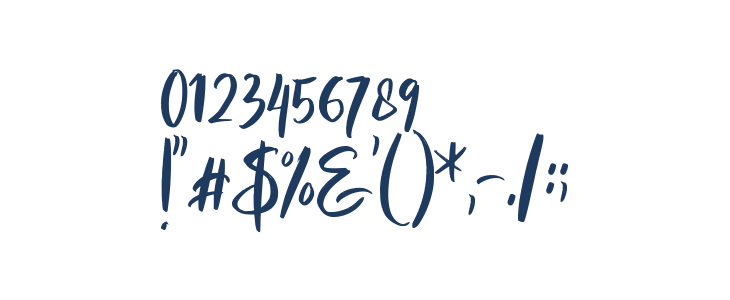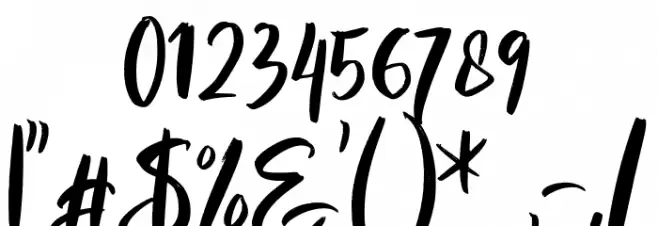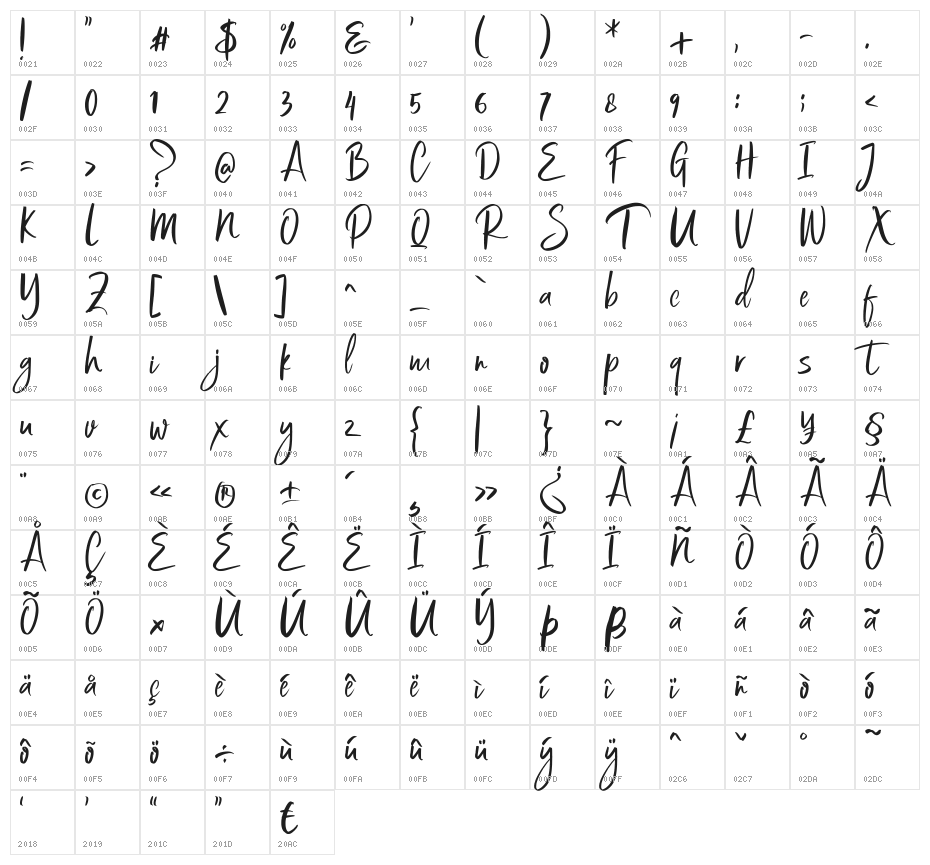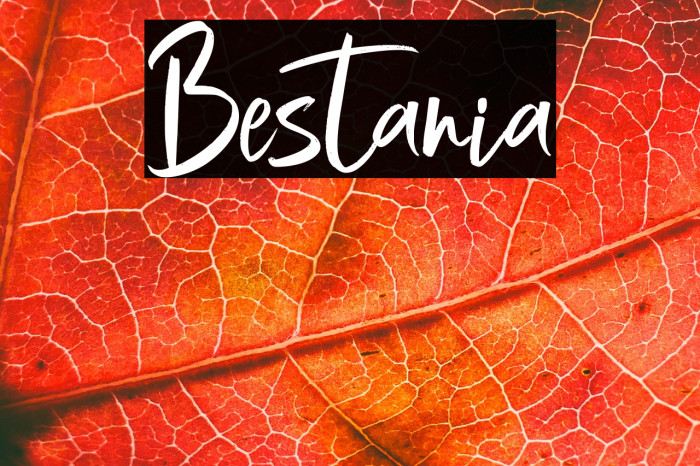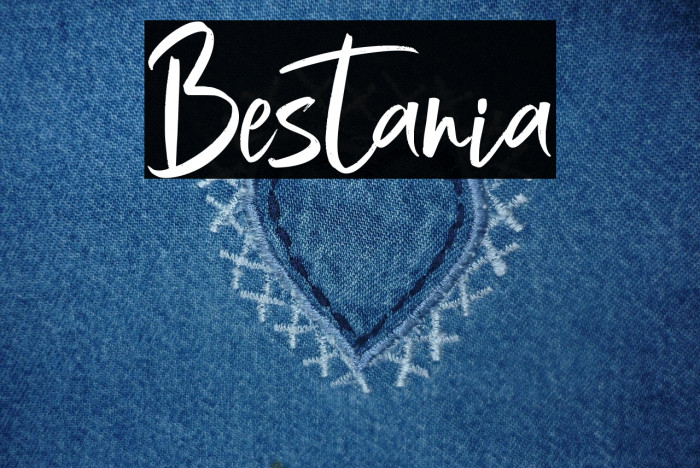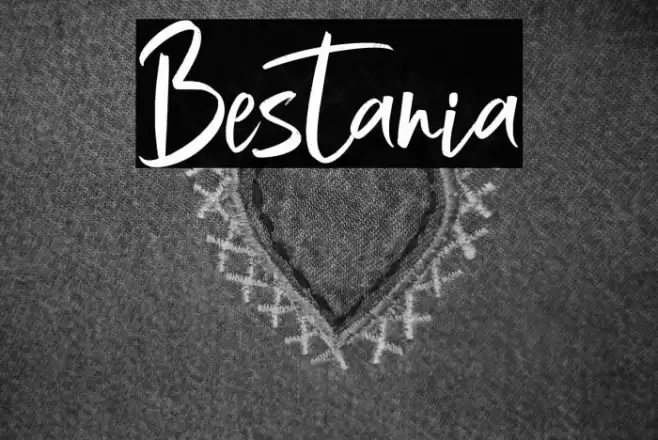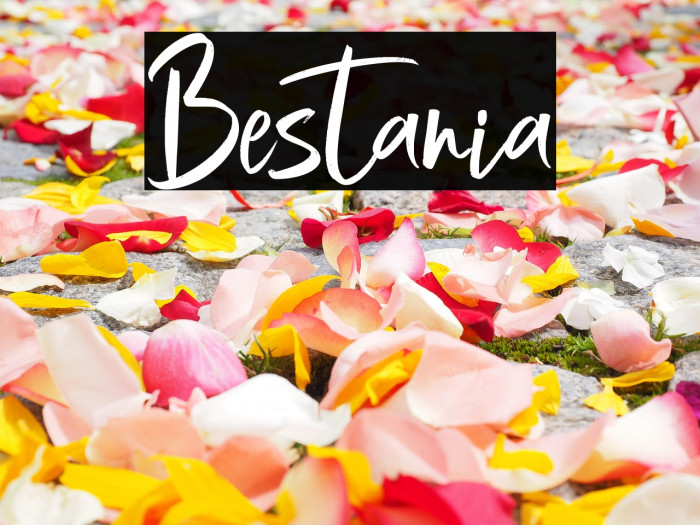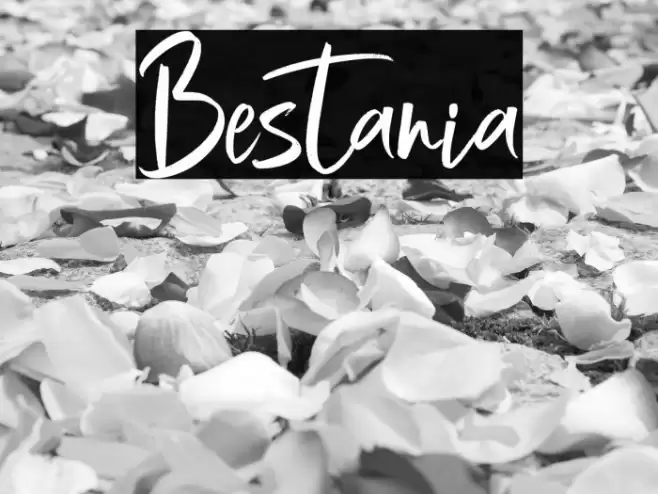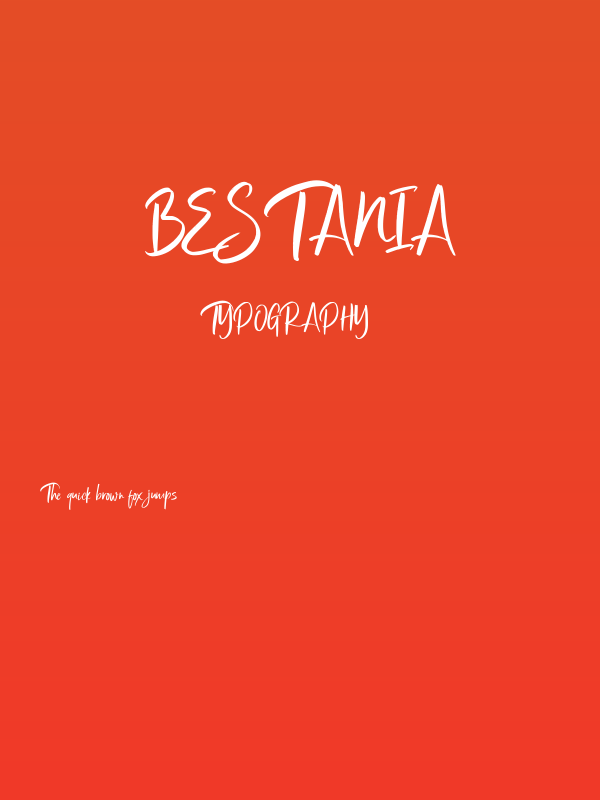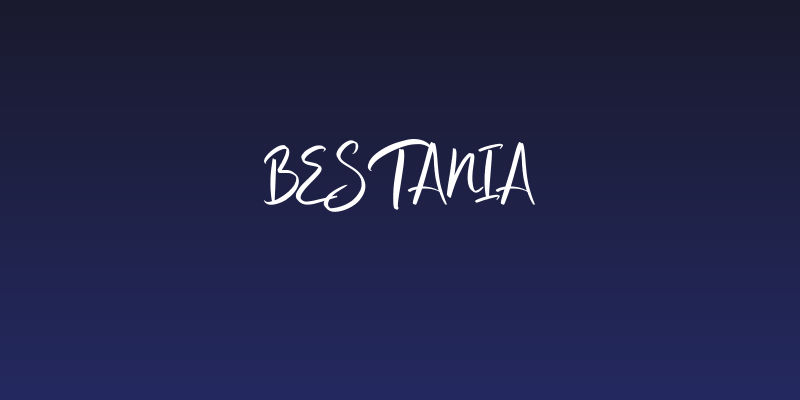
Bestania Font
Bestania Description
This font exhibits a lively and expressive handwritten style, characterized by its fluid and dynamic strokes. The letters are crafted with a sense of spontaneity, featuring varying thicknesses that add to its energetic appearance. The uppercase letters are bold and prominent, while the lowercase letters maintain a consistent flow, enhancing readability. Numbers and special characters are integrated seamlessly, maintaining the font's overall aesthetic. The playful nature of this font makes it suitable for creative and informal projects, where a personal touch is desired.
Proposed ProjectsIdeal for greeting cards, invitations, personal branding, and creative posters.